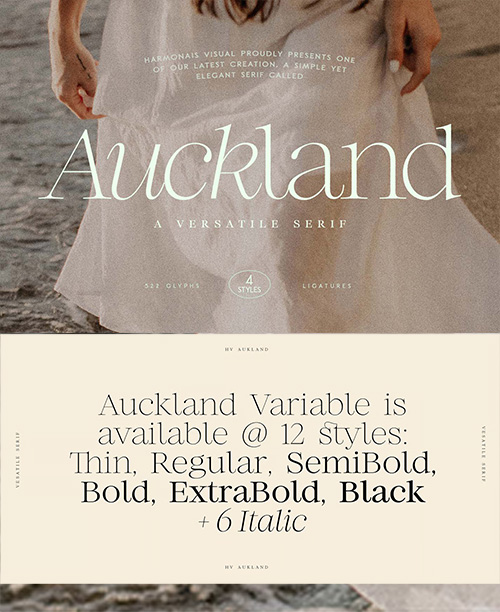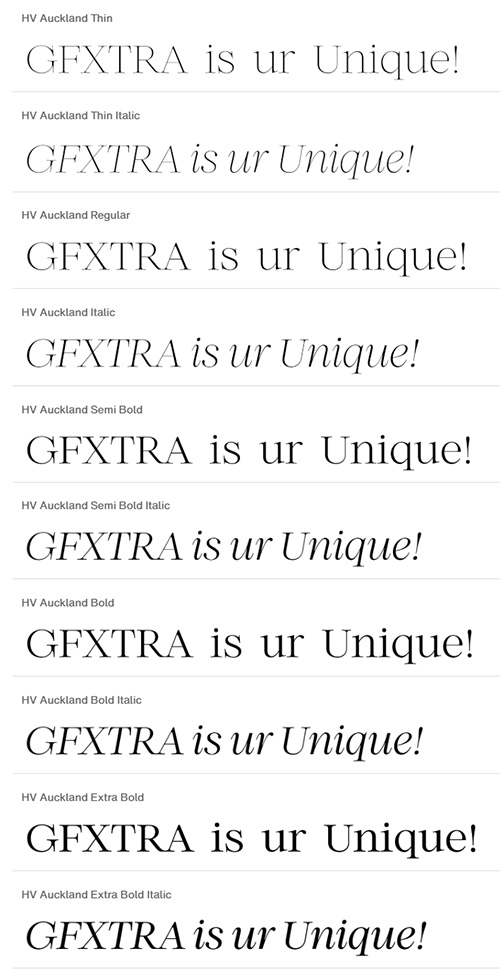
HV Auckland - 12 Styles Font Family
- Auckland Variable Serif is a highly versatile and elegant serif font that exudes a timeless charm. With its beautifully crafted curves and exquisite details, Auckland is the perfect choice for a wide range of design projects. Whether you need a font for display purposes, web design, or social media, Auckland will effortlessly elevate your creations to the next level. Its fancy curves add a touch of sophistication and uniqueness, making it a standout choice among other fonts.